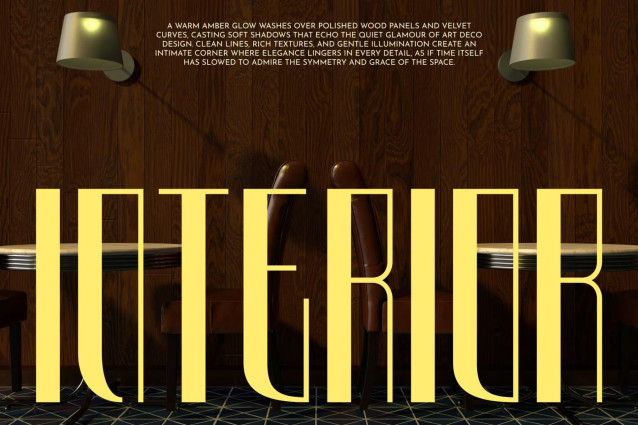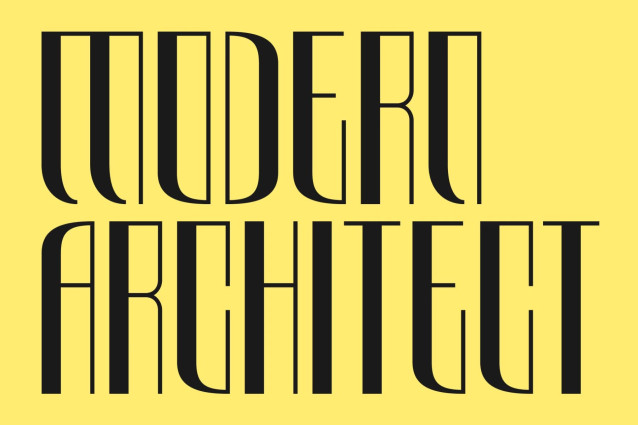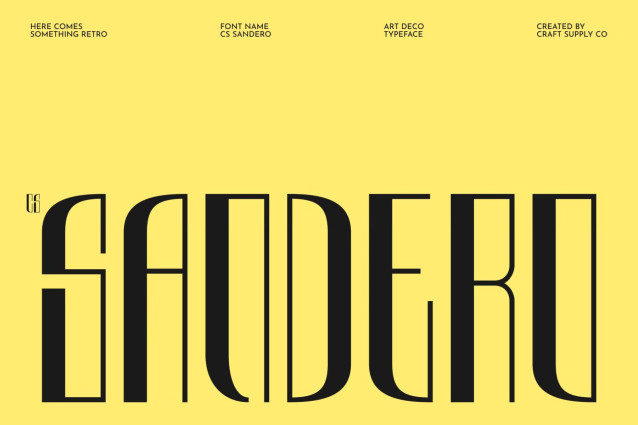
CS Sandero – Art Deco Font
CS Sandero – Elegant Art Deco Display Font: Where Vintage Glamour Meets Modern Sophistication
Tall Letterforms with Refined Geometric Balance
This is an elegant Art Deco display font inspired by the sophistication of vintage architecture and the glamour of classic design. Featuring tall letterforms, refined curves, and harmonious geometric balance, it captures the distinctive elegance of the Art Deco era while maintaining a clean, contemporary finish. The result is a typeface that feels graceful, luxurious, and effortlessly memorable.
Vintage Inspiration with Contemporary Refinement
Rooted in the timeless aesthetics of the 1920s and 1930s, this font transforms classic Art Deco influences into a modern display typeface. Its carefully proportioned forms and subtle decorative details evoke prestige and refinement, making every composition feel polished, stylish, and enduring without appearing overly ornate.
Luxurious Typography with Architectural Elegance
By combining elongated proportions, elegant curves, and geometric precision, that creates a sophisticated visual identity that communicates exclusivity and confidence. Its balanced construction allows it to shine in large-format typography, where its graceful details and architectural influence become striking focal points.